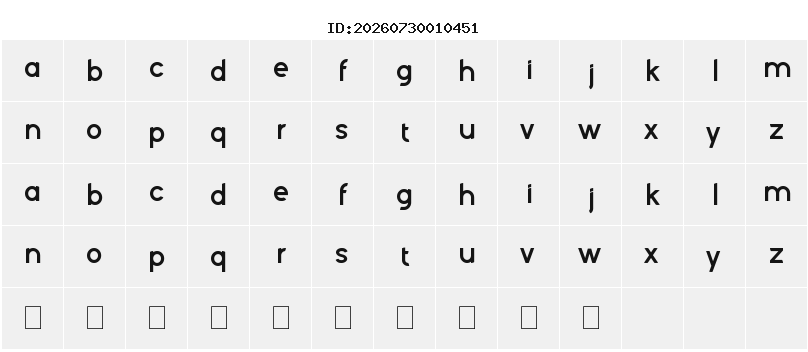
Kelvetica Preview
• Font Name: Kelvetica
• Font ID: Kelvetica:Version 1.00
• Full Font Name: Kelvetica
• Version: Version 1.00 September 22, 2013, initial release
• PostScript Name: Kelvetica
• Character Count: 56
• Designer: Erion Dyrmishi
• Manufacturer: Erion Dyrmishi
• Description: Kelvetica
About Kelvetica.ttf
Kelvetica.ttf is a modern, elegant sans-serif font designed for ultimate readability and visual harmony. Perfect for branding, headlines, web design, and print materials.